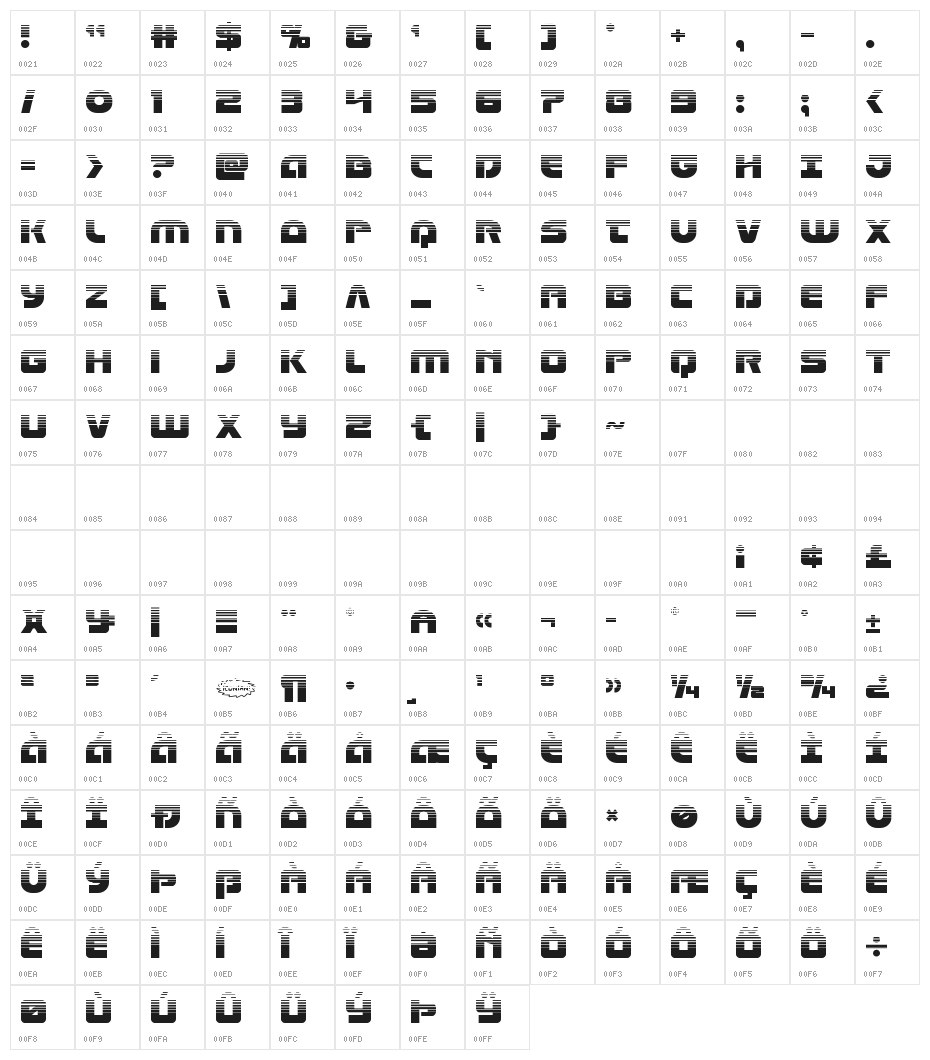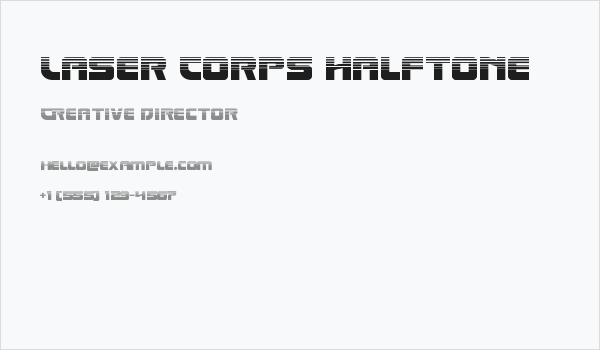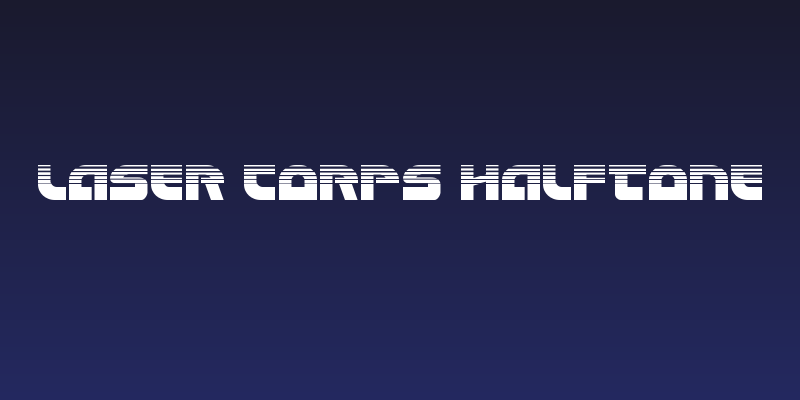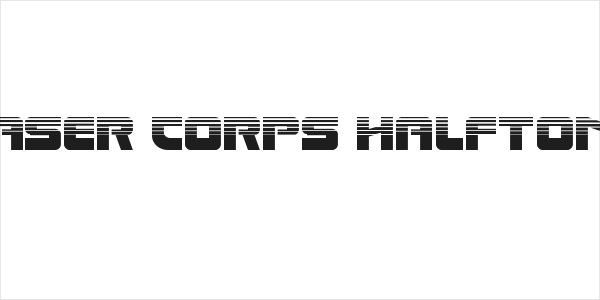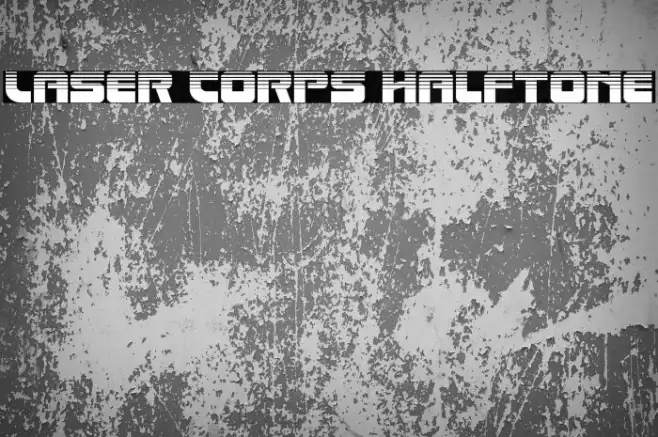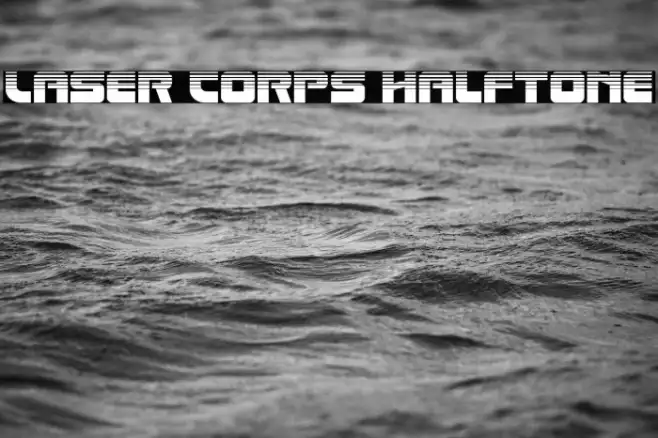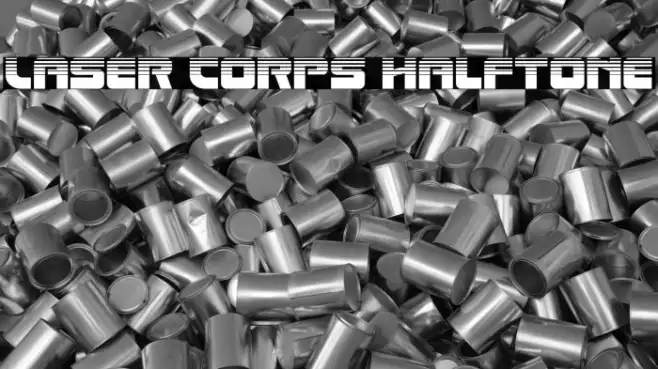
Laser Corps Halftone Font
Laser Corps Halftone Description
This font exhibits a bold, futuristic style characterized by its unique halftone effect. The letters are constructed with horizontal lines that create a sense of movement and dynamism. The design is geometric and structured, with a strong emphasis on horizontal alignment. The uppercase letters are particularly striking, with a bold presence that makes them ideal for attention-grabbing headlines. The numerals and special characters maintain the same stylistic approach, ensuring consistency across all elements. This font's distinctive appearance makes it suitable for projects that require a modern, tech-inspired aesthetic.
| Proposed Projects | Ideal for sci-fi themed posters, tech branding, video game titles, and futuristic event flyers. |